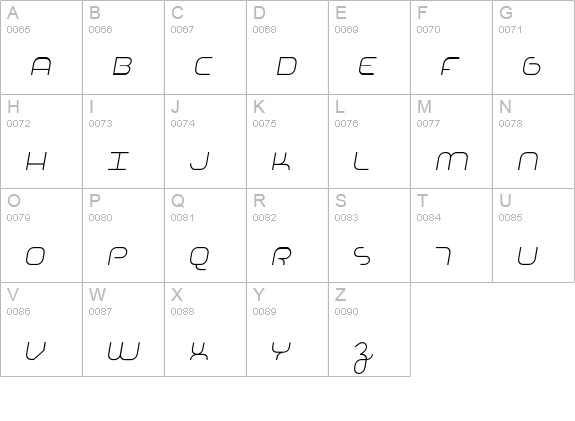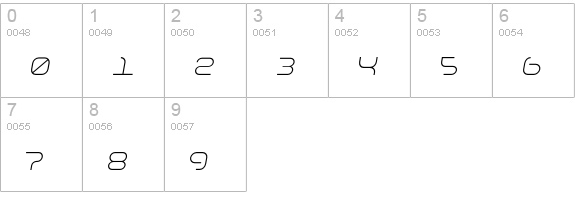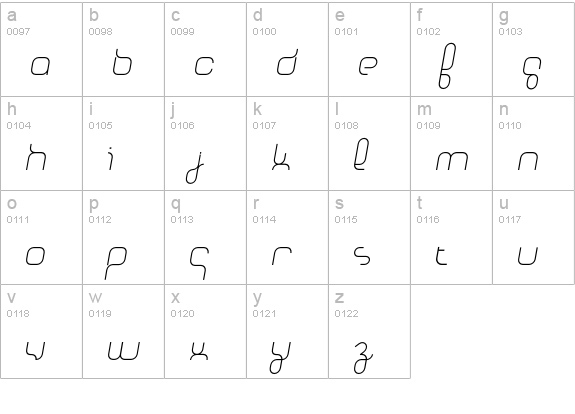
Basis-Oblique is a distinctive, italic variant in the Basis typeface family \xE2\x80\x94 well suited to design and typography projects.
Basis-Oblique font is a sleek and modern typeface that exudes sophistication and elegance. Its unique oblique design adds a touch of contemporary flair to any project, making it perfect for branding, editorial design, and more. The clean lines and subtle curves of Basis-Oblique create a sense of clarity and professionalism, while still maintaining a sense of creativity and style. What's even better is that Basis-Oblique font is available for free download at FontsMarket.com. This means you can easily access this versatile and eye-catching font to elevate your designs without breaking the bank. Whether you're working on a website, a poster, or a logo, Basis-Oblique font is sure to make a lasting impression. Download it now and see the difference it can make in your projects!